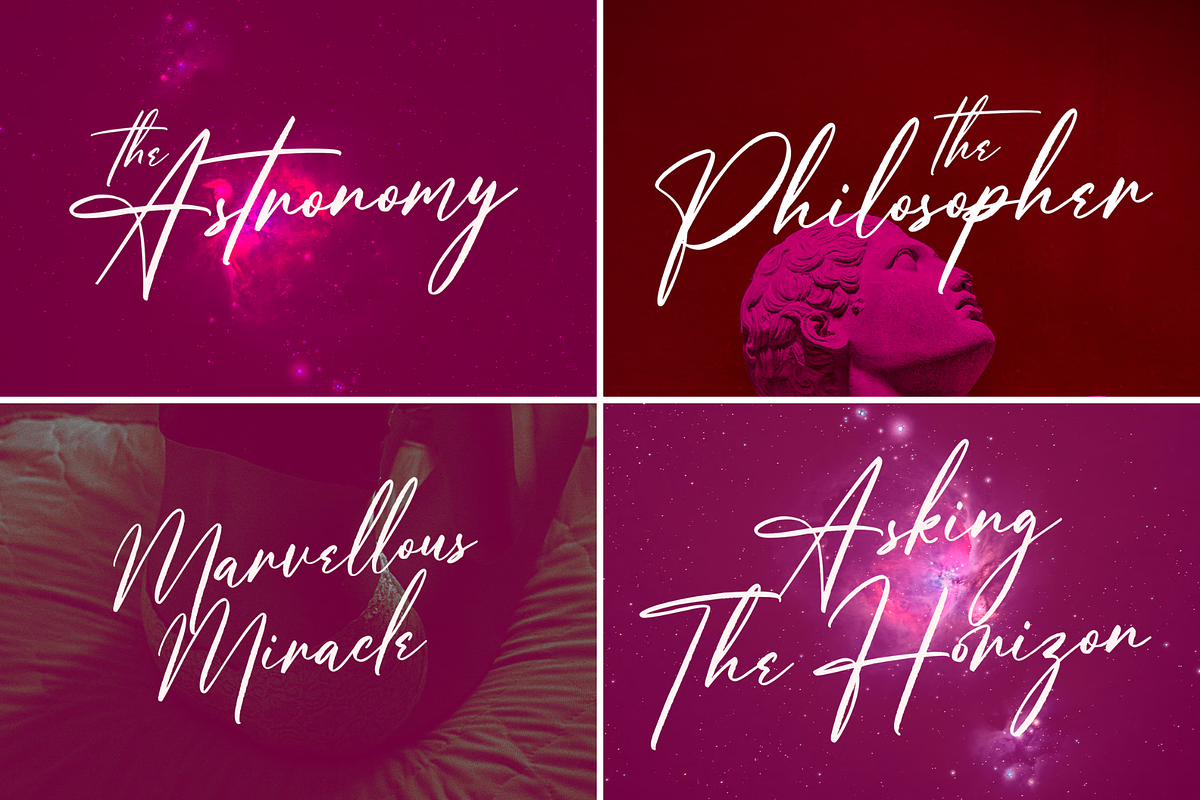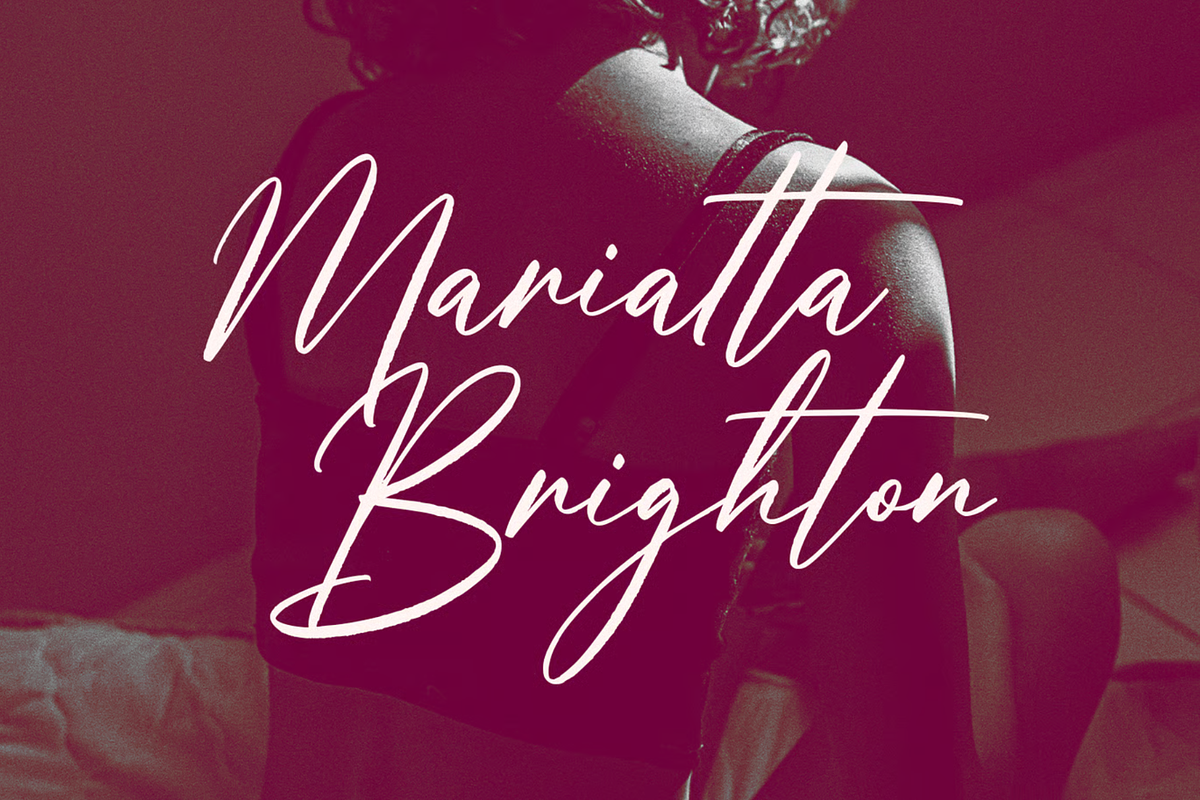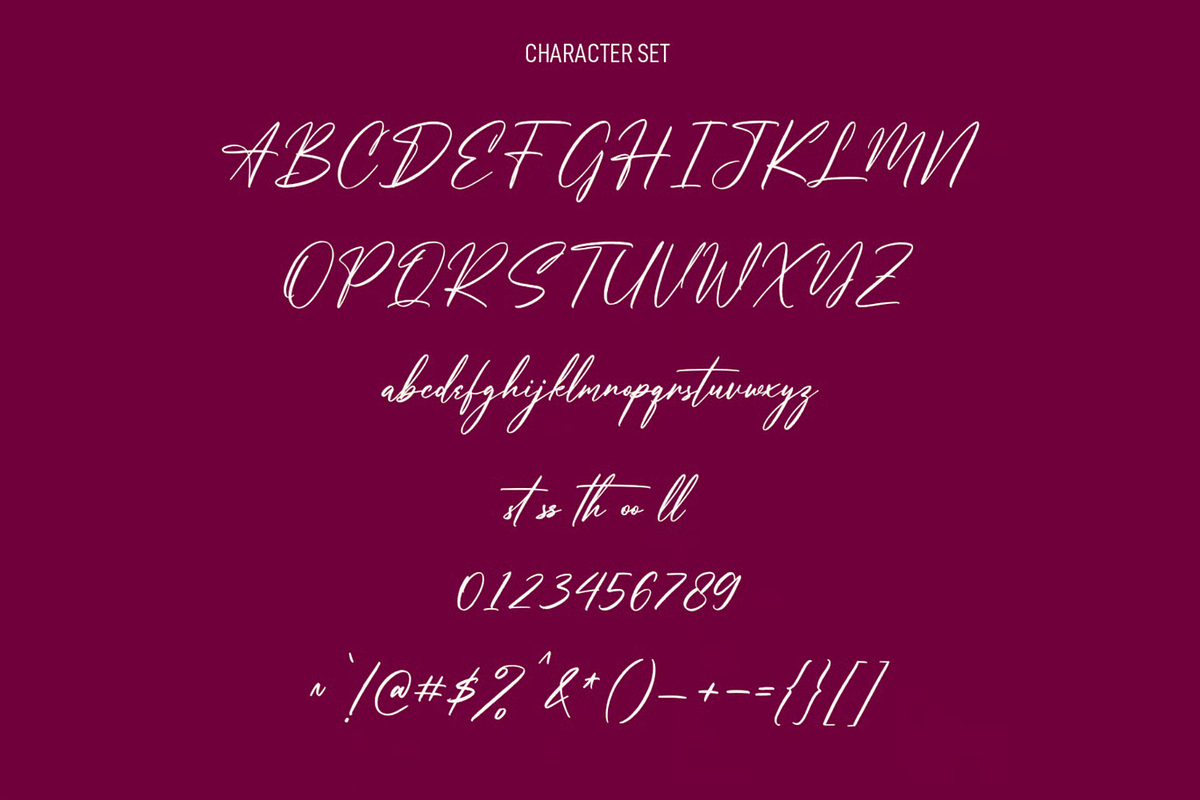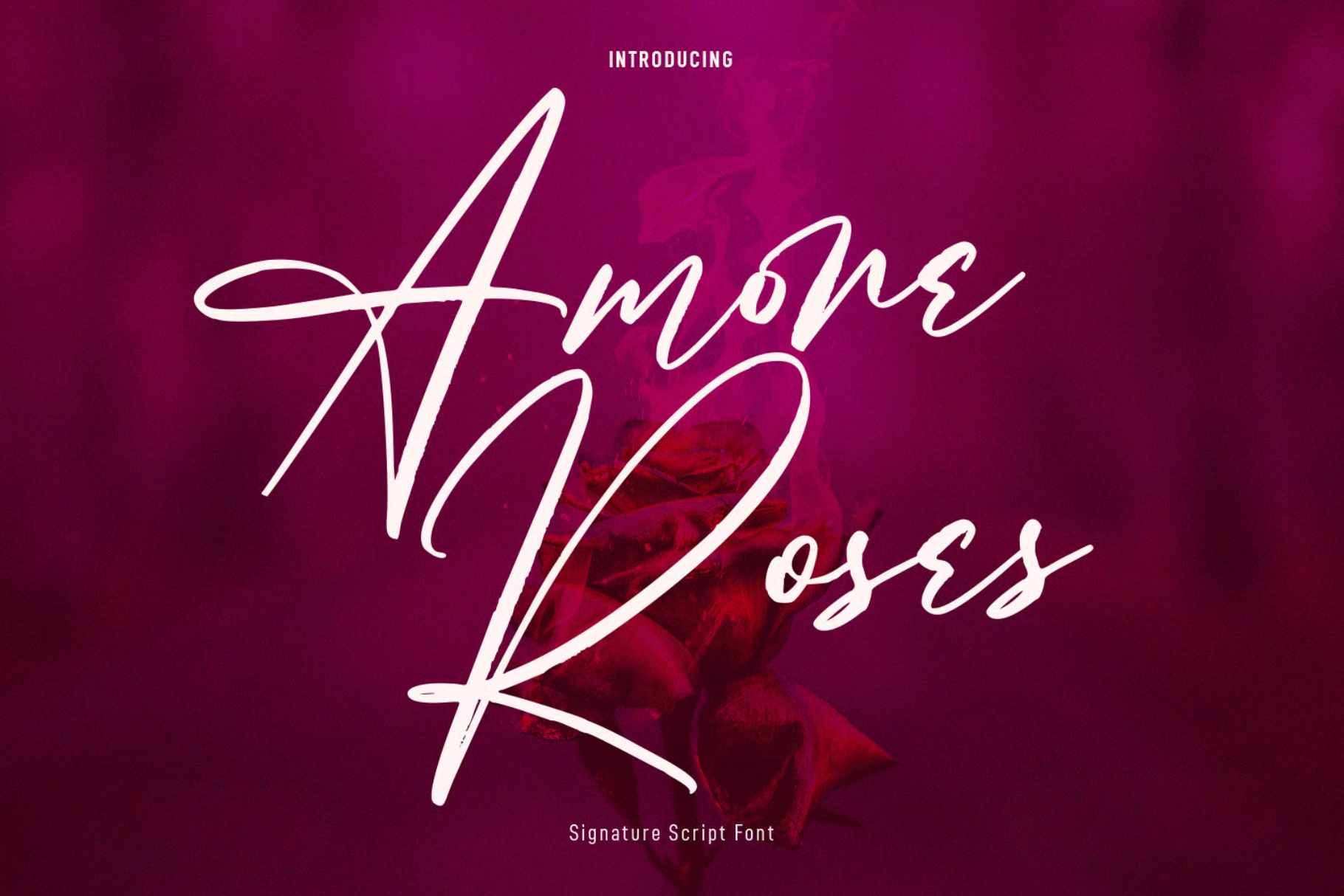
Amore Roses Signature Script Font
Amore Roses is a beauty elegant signature script font. With high contrast stroke, fun character with a bit of ligatures and alternates. To give you an extra creative work. Amore Roses font support multilingual more than 100+ language. This font is good for logo design, Social media, Movie Titles, Books Titles, a short text even a long text letter and good for your secondary text font with sans or serif. Make a stunning work with Amore Roses font.